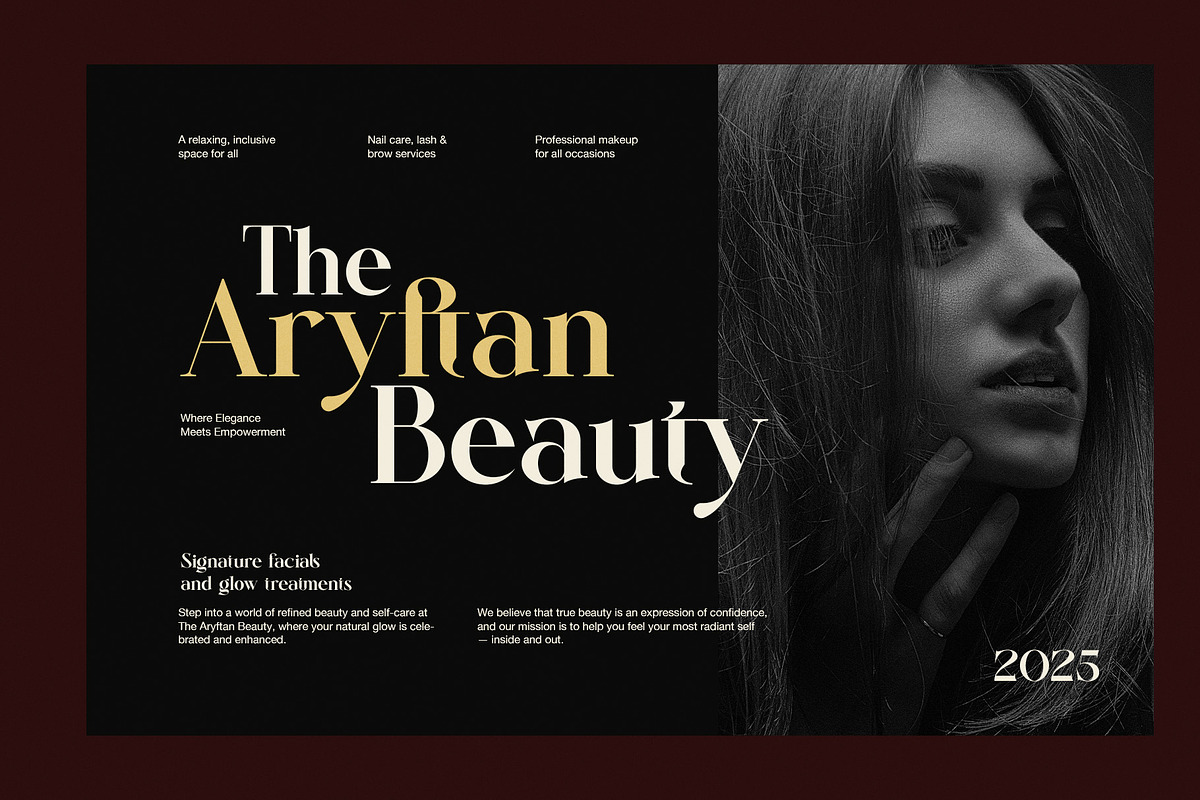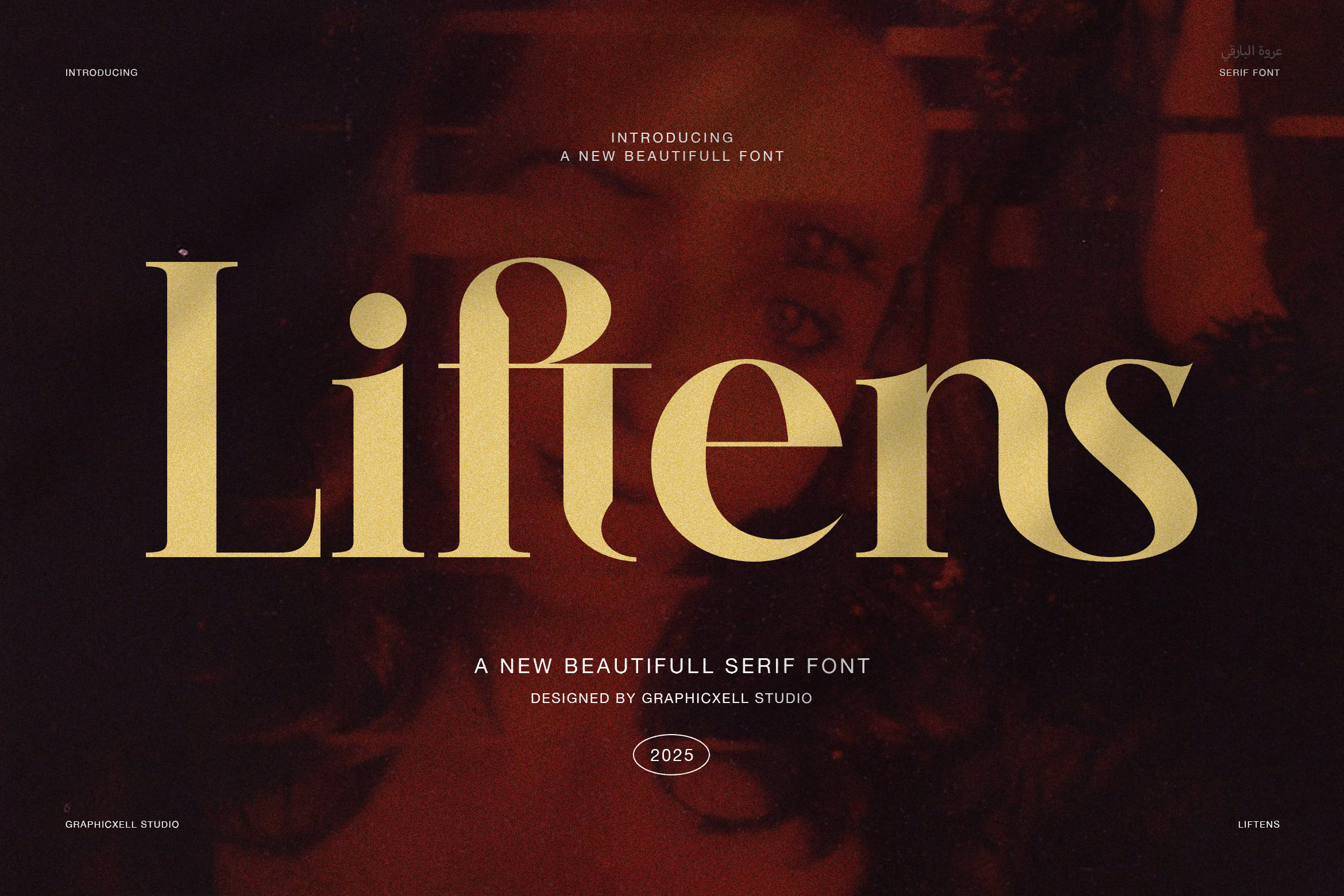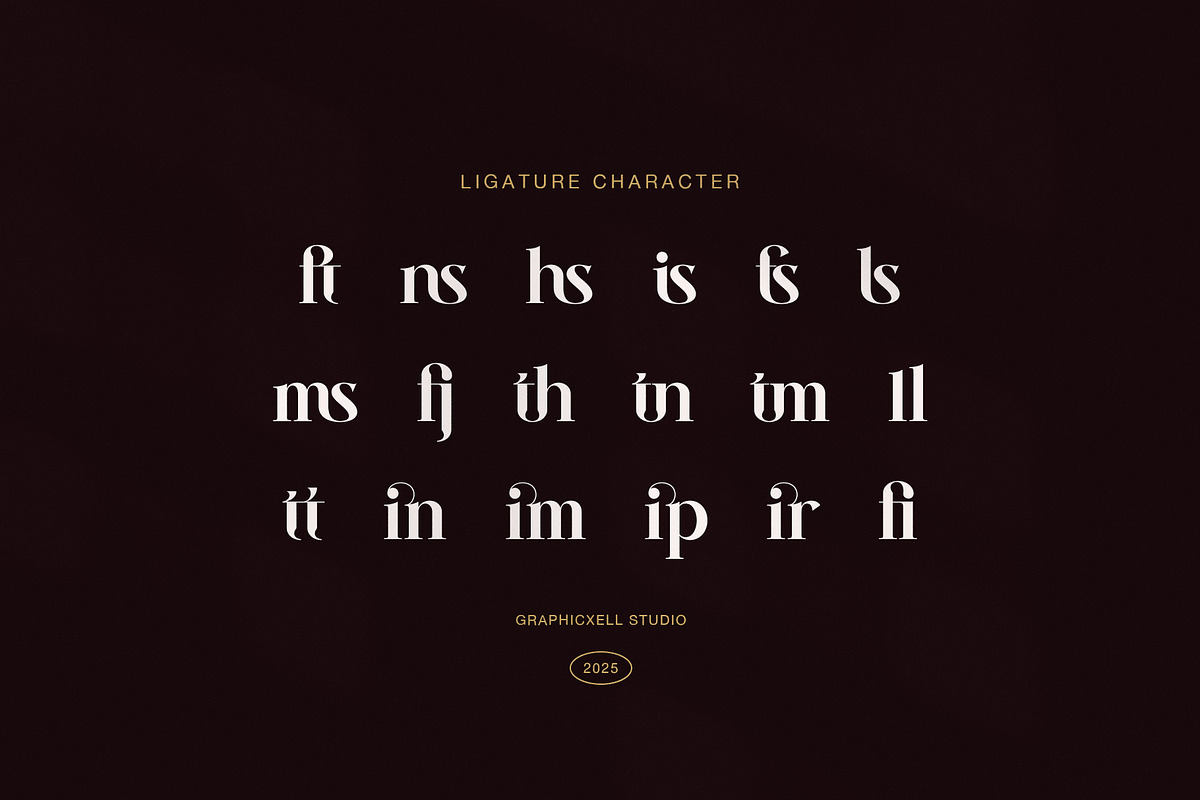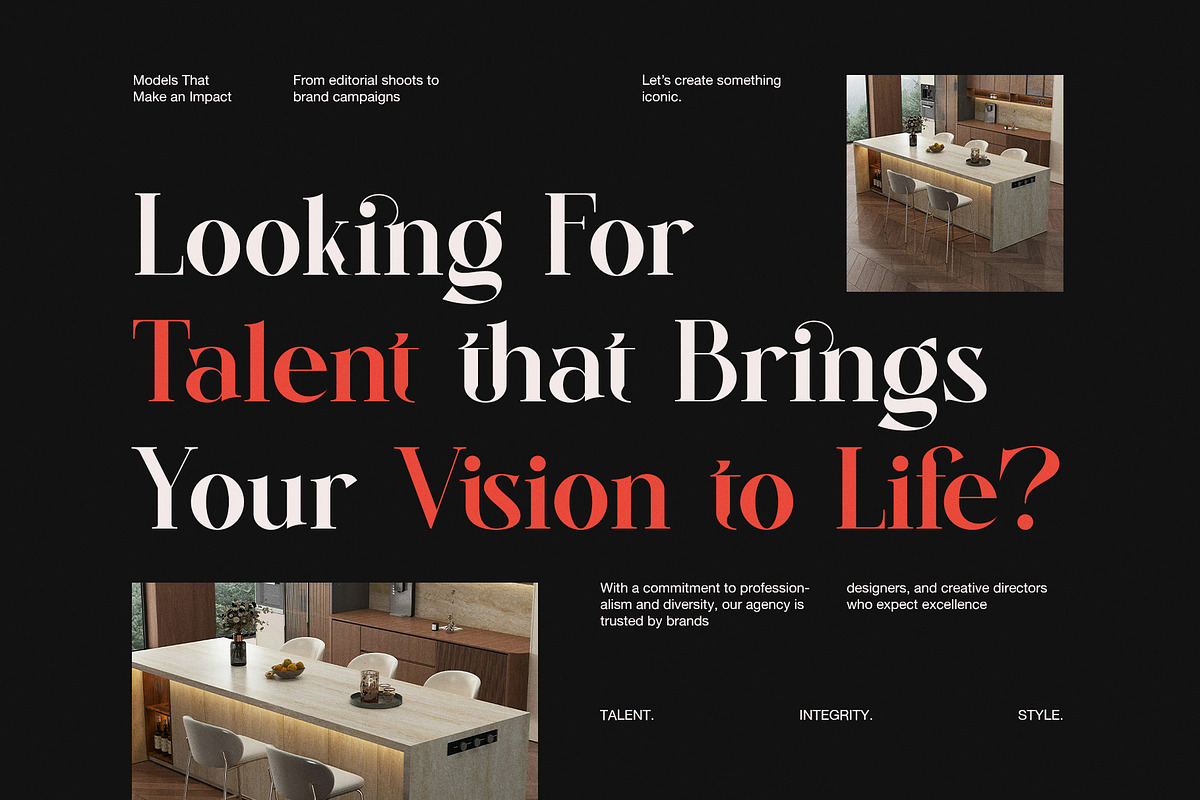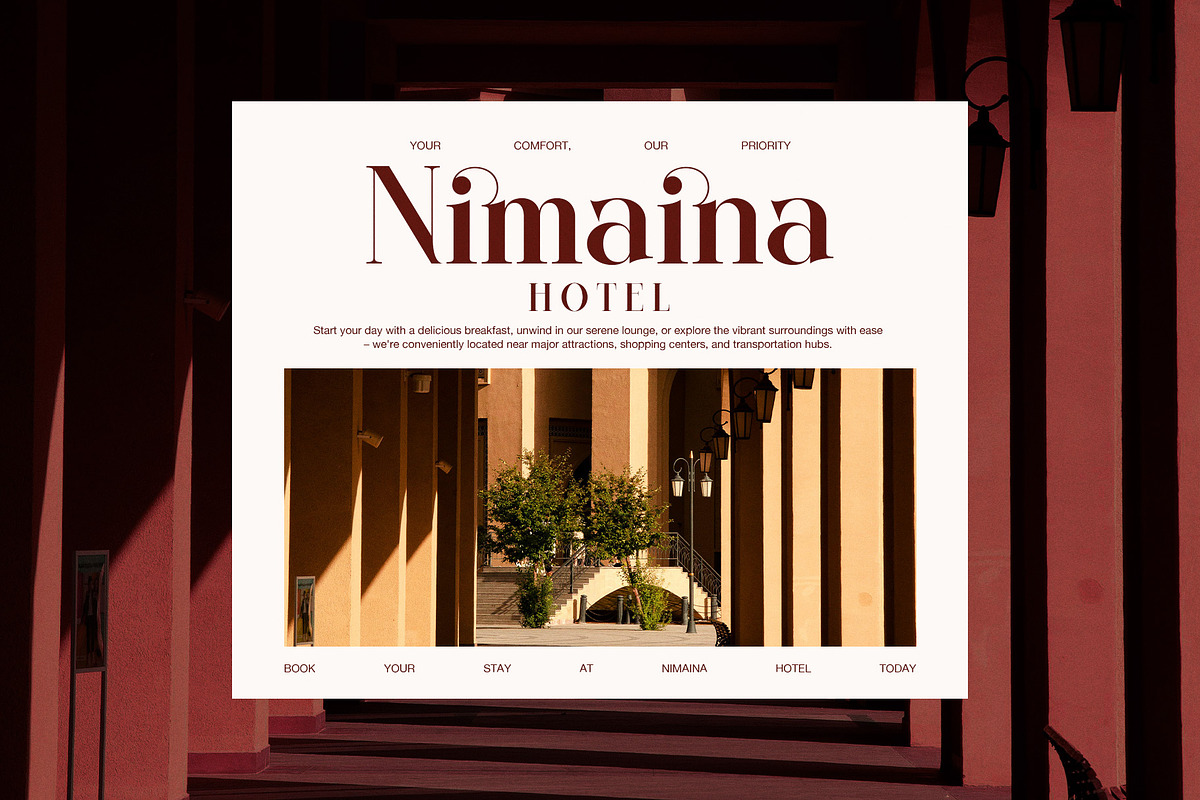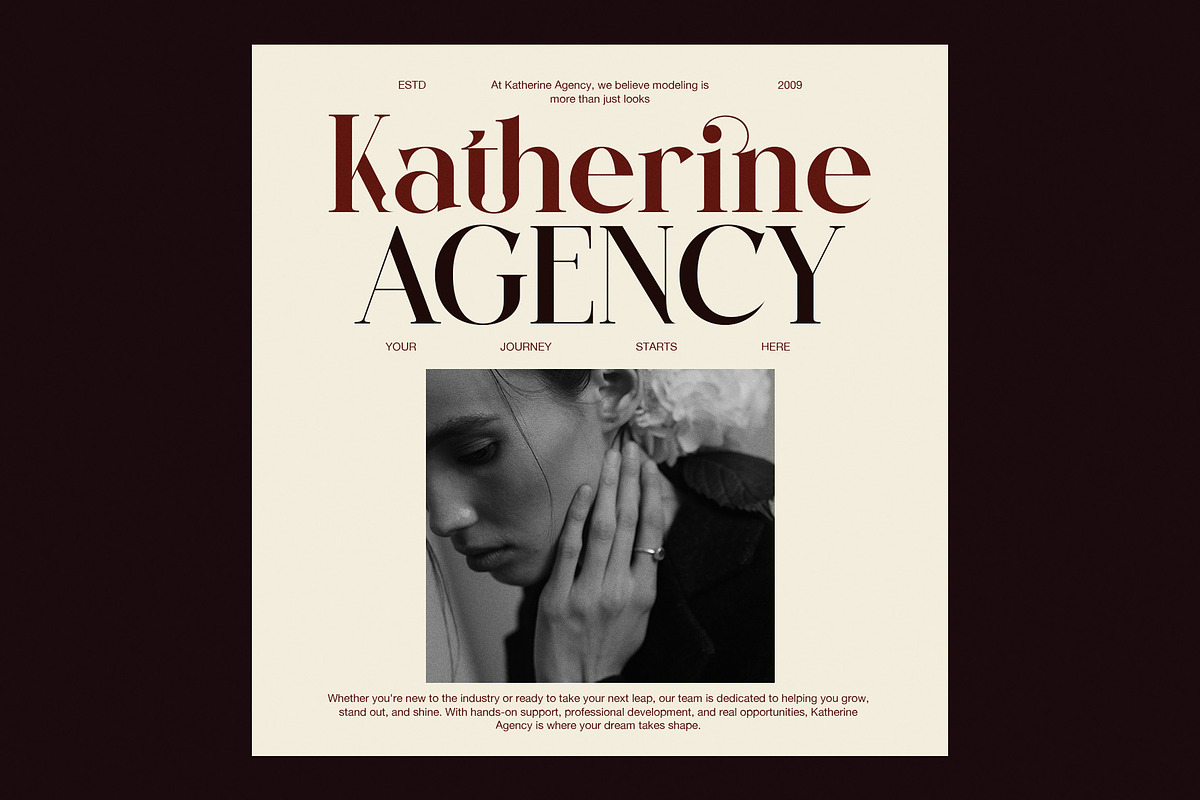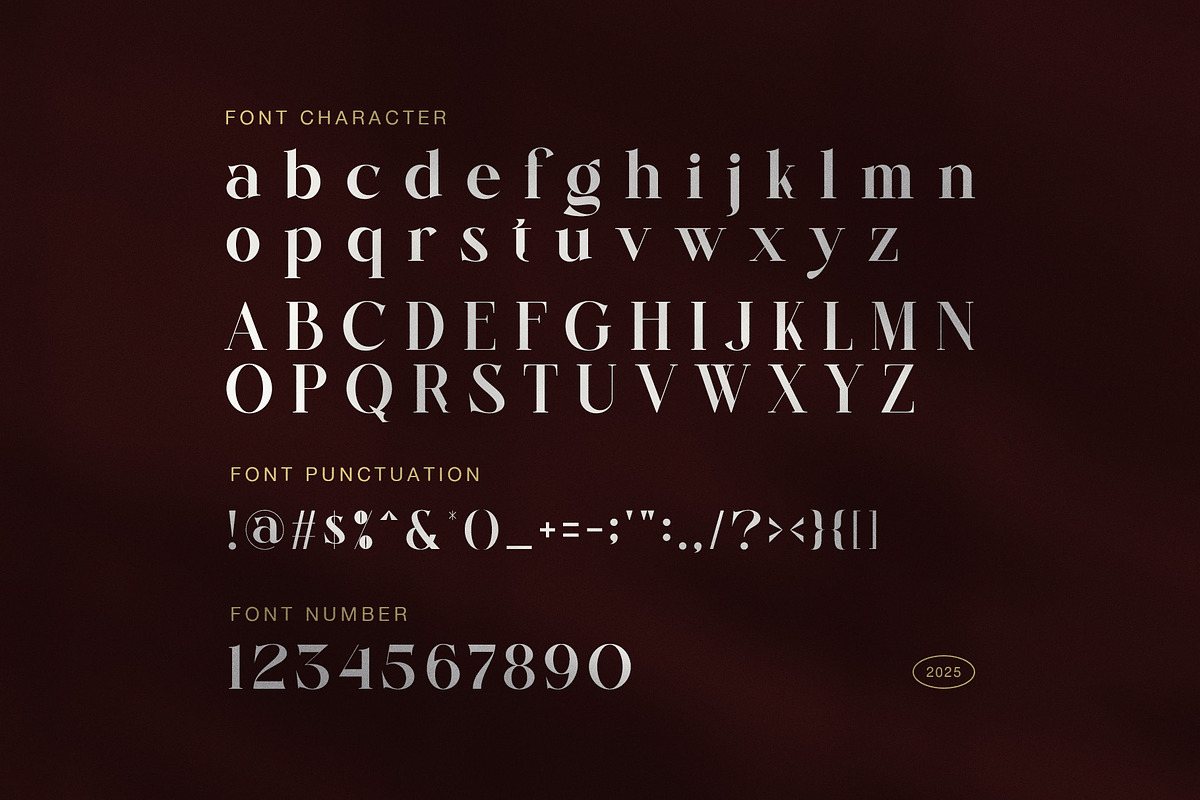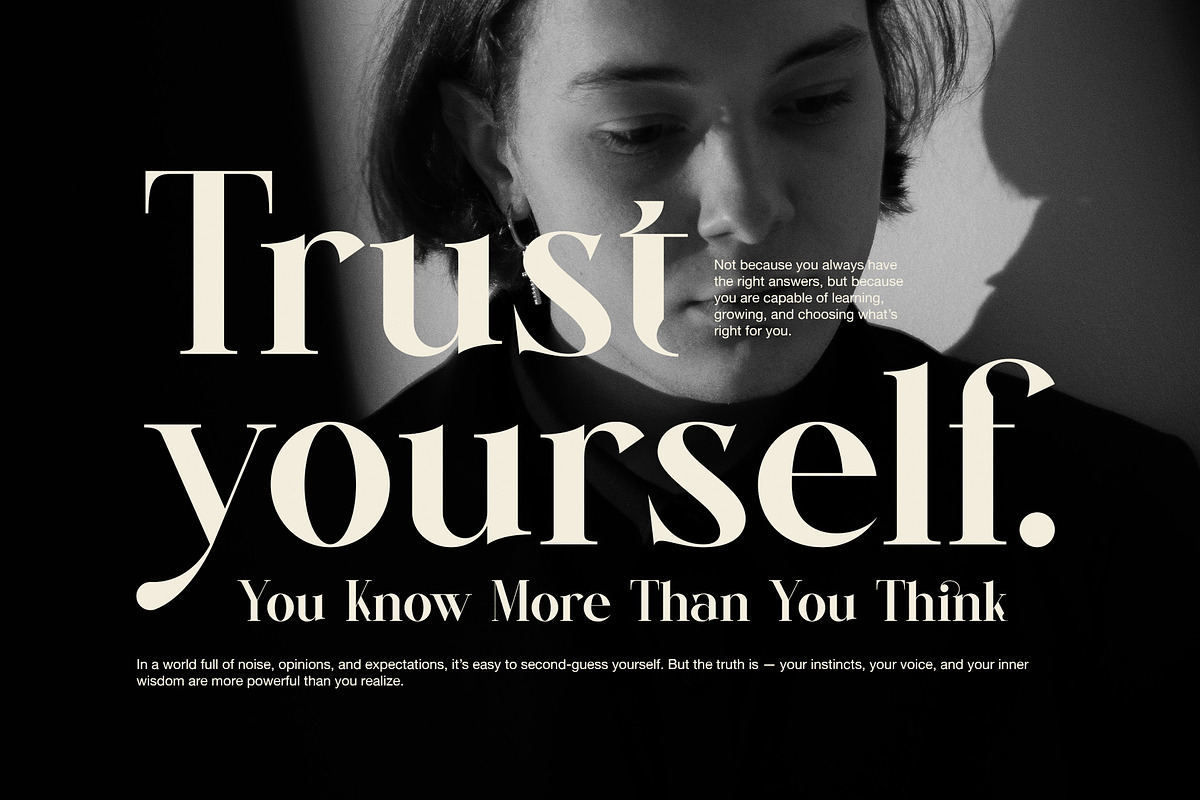
Liftens Elegant Serif Font
Liftens is a refined modern serif font that blends timeless beauty with contemporary confidence. Designed by Graphicxell Studio, this typeface combines smooth contrast, graceful curves, and artistic ligatures to create a truly luxurious impression.
From the very first glance, Liftens feels elegant yet powerful. Each character has been shaped with purpose, ensuring perfect balance between classic design and modern minimalism. Because of its versatility, you can easily use Liftens for logos, editorials, invitations, or websites, and every result will look sophisticated and stylish.
🌟 Perfect For
Liftens adapts effortlessly to various creative projects, including:
Luxury branding and packaging that feels exclusive and refined
Editorial headlines that attract instant attention
Wedding stationery and event design that feels timeless
Fashion campaigns and product labels with modern allure
Web design and business identity that stand out beautifully
✨ Font Features
Full uppercase and lowercase characters
Punctuation, symbols, and numerals
Unique and graceful ligatures
Elegant proportions and visual balance
💡 Why Designers Love Liftens
Unlike ordinary serif fonts, Liftens adds character and warmth to every project. It offers not only visual harmony but also strong readability. As a result, your typography remains both elegant and functional. Moreover, the soft transitions and fluid shapes make Liftens ideal for both print and digital work.
Because every curve flows naturally, your text gains a feeling of refinement and purpose. Therefore, it becomes an excellent choice for brands seeking timeless beauty with a modern edge. When you need style, structure, and sophistication in one design solution, Liftens delivers all three with perfection.